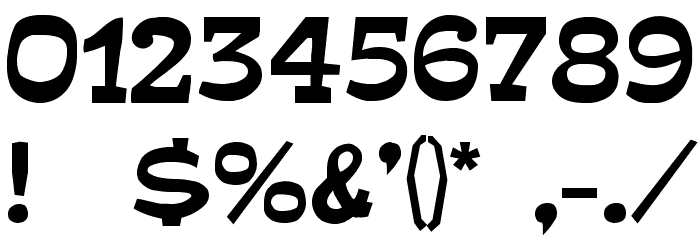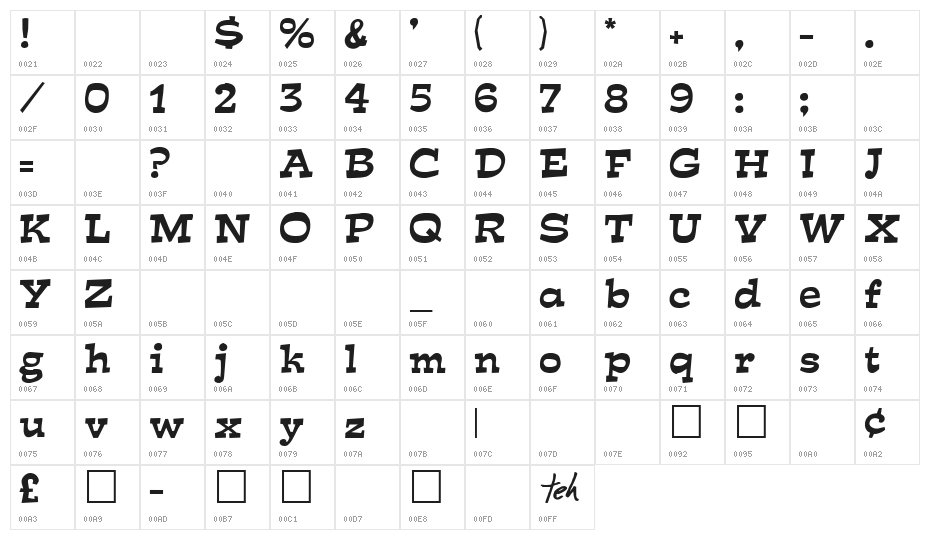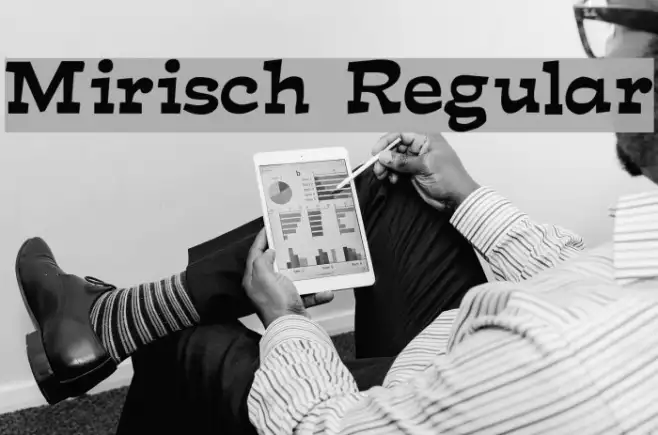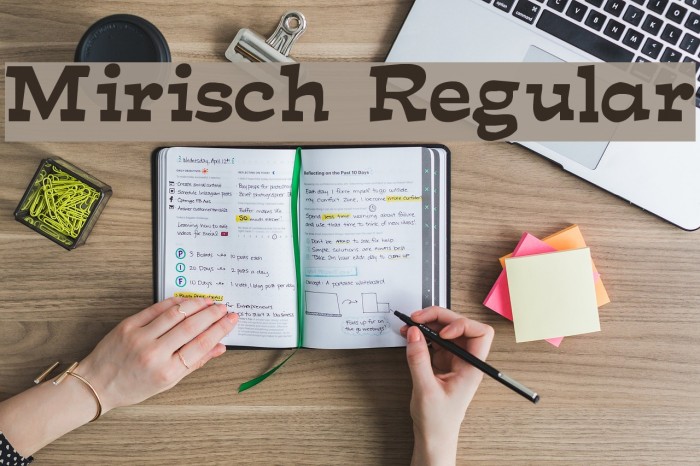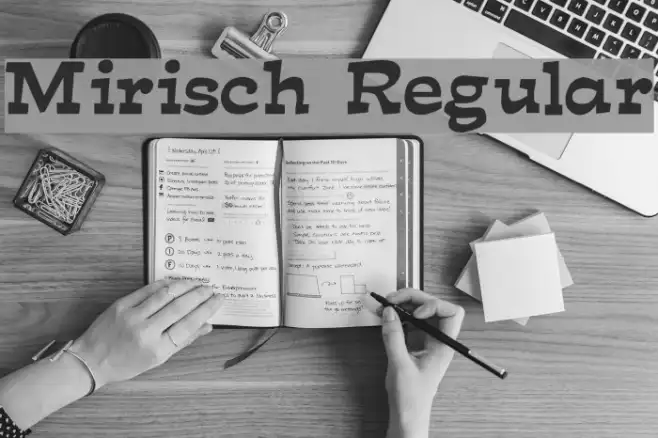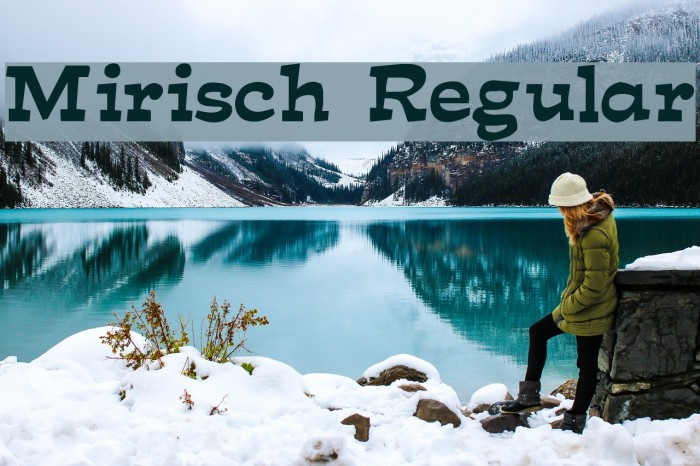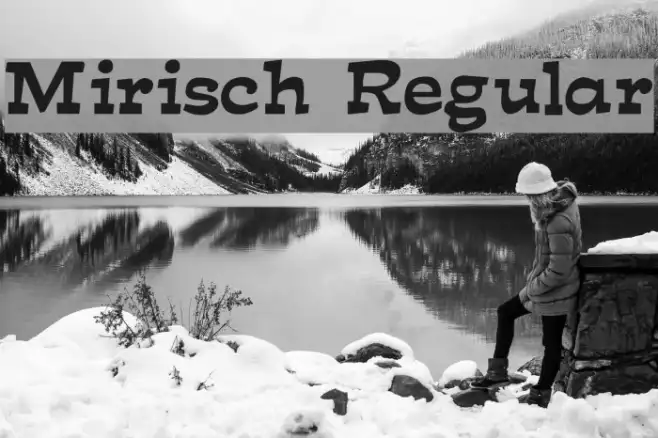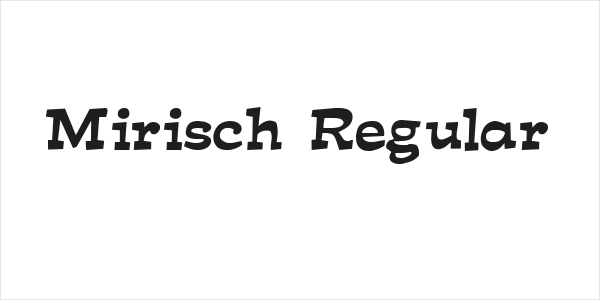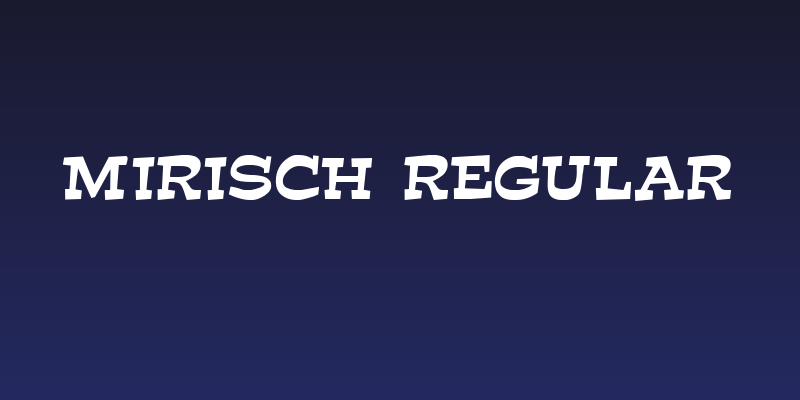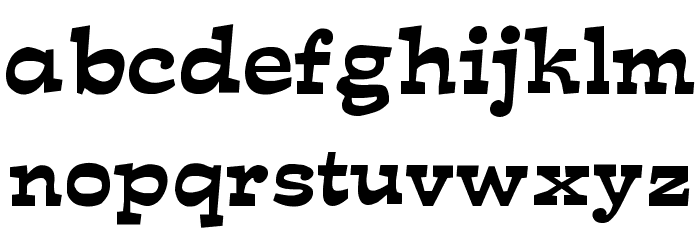
Mirisch Regular Font
Mirisch Regular Description
This font features a bold and playful design with a distinctive slab serif style. The characters exhibit a slight slant, adding a dynamic and energetic feel. The uppercase letters are robust and commanding, while the lowercase letters maintain a friendly and approachable appearance. The numerals are bold and consistent, ensuring readability. Special characters are uniquely styled, complementing the overall aesthetic. The font's design is well-suited for projects that require a strong visual impact and a touch of whimsy.
Overall StylePlayful, Energetic
Proposed ProjectsIdeal for posters, branding, children's books, and playful advertising campaigns.